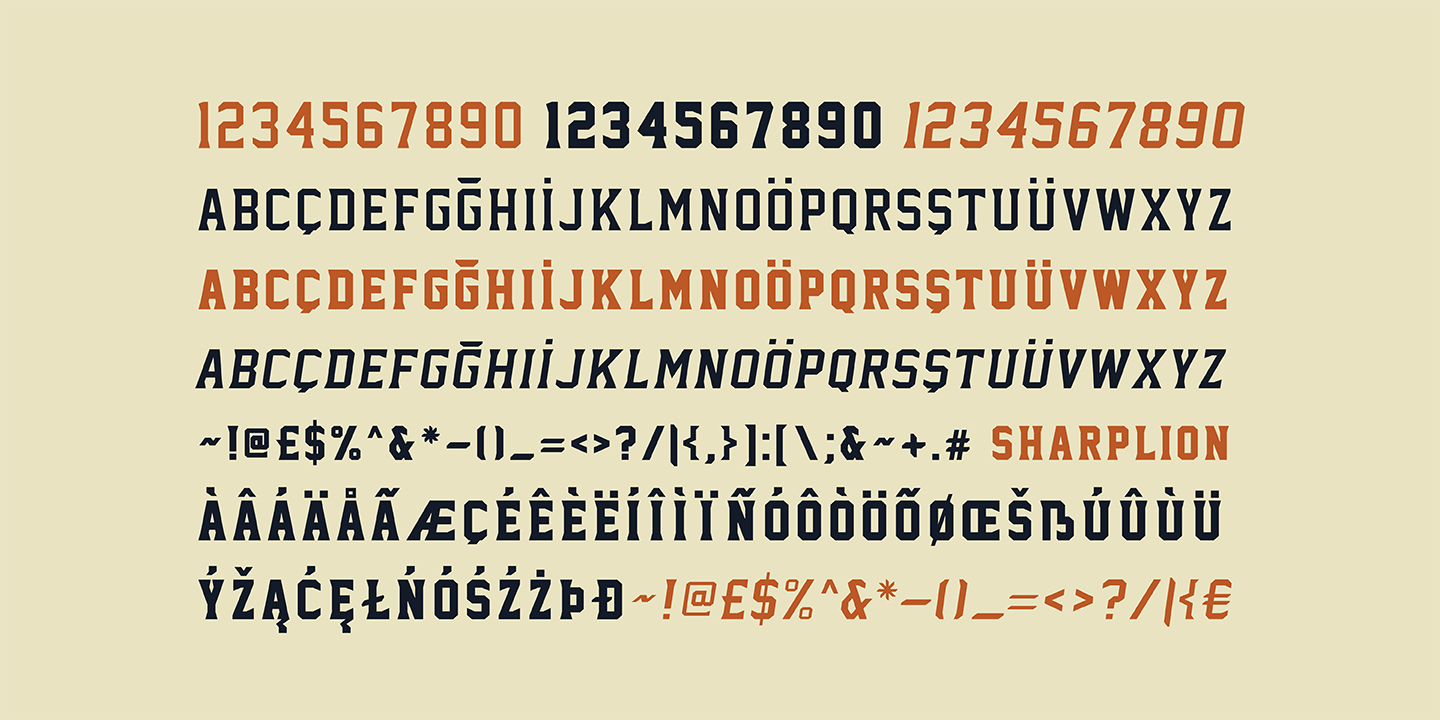
The Sharplion Font is a bold and commanding display typeface, often characterized by its sharp angles, strong serifs, or powerful, condensed letterforms, designed to convey a sense of strength, precision, and unyielding confidence. Imagine this font making a dramatic statement on movie posters for action thrillers, adding an aggressive edge to sports team branding, or bringing an undeniable sense of authority to automotive advertisements. Its robust construction and assertive presence make it an excellent choice for gaming titles, heavy metal album art, and any project where a sense of commanding power and a bold, unwavering statement are paramount. Sharplion Font is also perfectly suited for impactful merchandise design, striking event promotions, and any visual content that demands attention with its formidable presence.
What makes Sharplion Font so exciting is its immediate ability to command the spotlight and inject designs with a powerful, modern energy. It possesses an undeniable visual force that makes your message feel solid, assertive, and undeniably impactful. The deliberate design, often featuring sharp corners, strong verticals, or a subtly mechanical feel, contributes to its distinctive and memorable appearance. This font doesn't just display words; it projects them with an air of sophisticated strength and modern aggression, making every headline feel impactful and unforgettable. Its inherent design ensures your visuals will resonate with an audience that appreciates bold, clean aesthetics and a strong brand voice.
The Sharplion Font family is typically designed to offer versatile options for impactful typography. You'll often find a core Sharplion Font Free Download Regular weight that embodies its signature robust style. Additionally, this family often includes valuable variations such as a bold or heavy weight for maximum impact, or perhaps a condensed or extended version to provide more layout flexibility. Some professional sets might also include an italic or oblique version to add a sense of motion or emphasis. These different weights and styles allow for immense flexibility, ensuring that Sharplion Font can effectively carry various levels of hierarchy within a design, from a dominant primary statement to supporting information, all while maintaining its consistent and commanding visual identity.